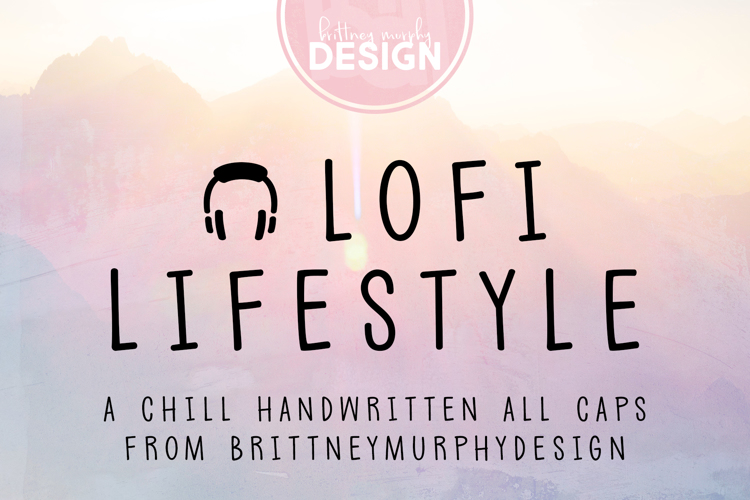
LoFi * Lifestyle Font
About LoFi * Lifestyle Font
The LoFi Lifestyle Font is a chill, handwritten, all-caps typeface created in 2022 by Brittney Murphy Design.
Use the * for the headphones